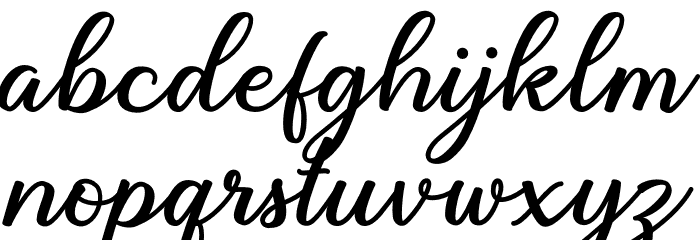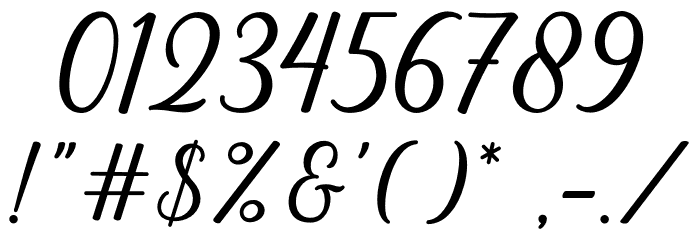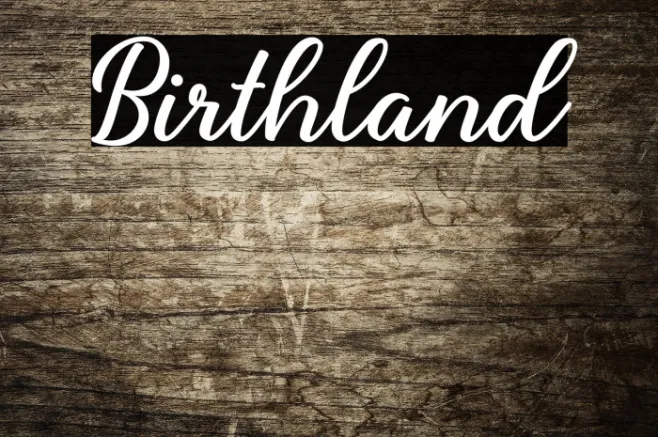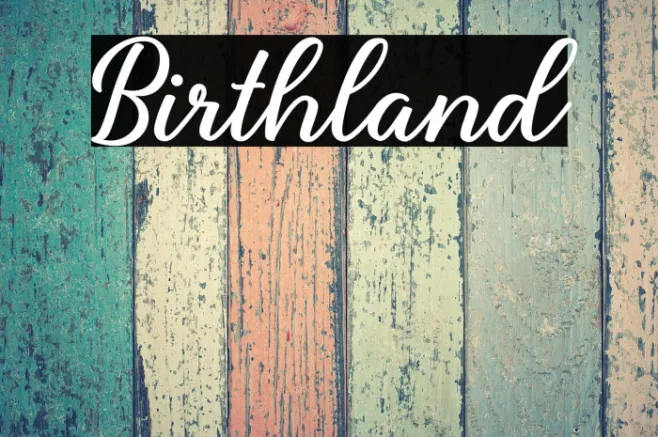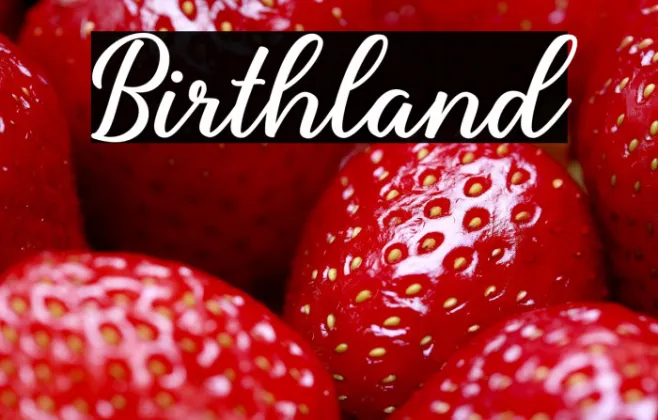
Birthland Font
This font features a flowing, cursive style with elegant, sweeping strokes that give it a sophisticated and graceful appearance. The uppercase letters are slightly more ornate, with decorative flourishes that enhance their visual appeal. The lowercase letters maintain a consistent rhythm, contributing to a harmonious and fluid text line. The numerals are clear and legible, matching the overall style with subtle curves. Special characters are well-integrated, maintaining the font's cohesive look. This script font exudes a sense of elegance and formality, making it suitable for a variety of creative applications.
A graceful cursive font with elegant, sweeping strokes and decorative flourishes.
- Proposed Projects: Ideal for wedding invitations, elegant branding, personal stationery, and decorative signage.
- Category: Script
- Overall Style: Elegant
- Use Case: Headlines, Invitations, Branding